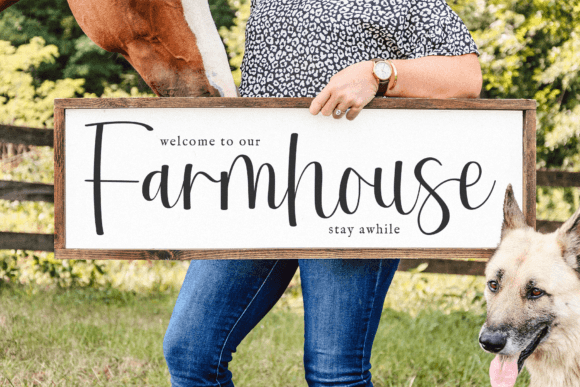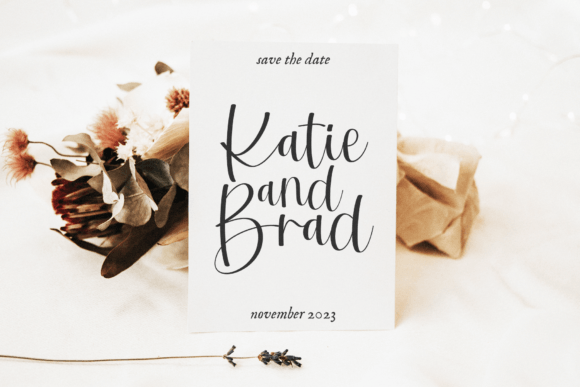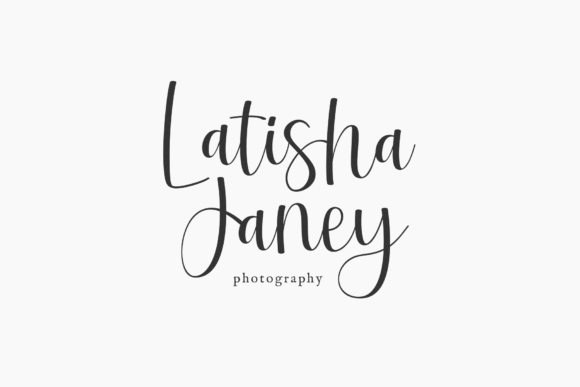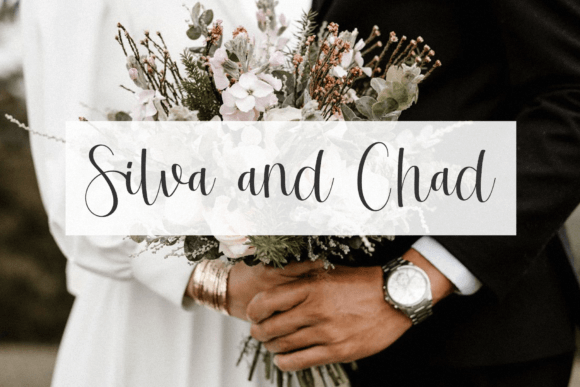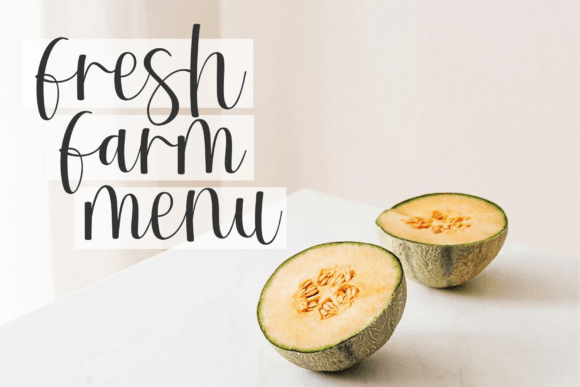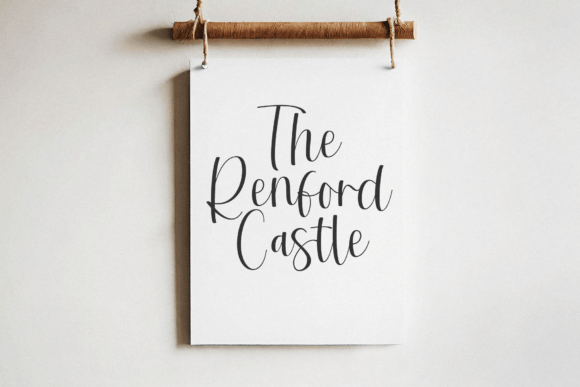
Introducing Farmhouse Country Font: The Perfect Addition to Your Craft Projects
Are you a designer, crafter, or DIY enthusiast looking for a font that can add a touch of modern charm to your projects? Look no further than Farmhouse Country Font, a beautiful modern script font that’s perfect for a wide range of craft projects. In this article, we’ll take a closer look at this versatile font and explore its many uses, from logos and signs to Cricut projects, quotes, stickers, and more.
What is Farmhouse Country Font?
Farmhouse Country Font is a modern script font that’s designed to bring a touch of rustic charm to your craft projects. With its elegant, cursive lines and modern feel, this font is perfect for anyone looking to add a personal touch to their designs. Whether you’re creating logos, signs, or other craft projects, Farmhouse Country Font is sure to impress.
Uses for Farmhouse Country Font
One of the best things about Farmhouse Country Font is its versatility. This font can be used for a wide range of craft projects, including:
- Logos: Create a custom logo for your business or brand with Farmhouse Country Font. This font is perfect for businesses that want to convey a sense of rustic charm and elegance.
- Signs: Use Farmhouse Country Font to create beautiful signs for your home or business. This font is perfect for directional signs, welcome signs, and more.
- Cricut Projects: Farmhouse Country Font is a great addition to any Cricut project. Use it to create custom vinyl decals, iron-on designs, and more.
- Quotes: Add a touch of elegance to your quote designs with Farmhouse Country Font. This font is perfect for creating inspirational quotes, motivational quotes, and more.
- Stickers: Use Farmhouse Country Font to create custom stickers for your laptop, water bottle, or any other surface.
- Pantry Labels: Add a touch of rustic charm to your pantry with custom labels created with Farmhouse Country Font.
Why Choose Farmhouse Country Font?
So why choose Farmhouse Country Font for your craft projects? Here are just a few reasons:
- Unique and Versatile: Farmhouse Country Font is a unique and versatile font that’s perfect for a wide range of craft projects.
- Elegant and Modern: This font has an elegant, modern feel that’s sure to impress.
- Easy to Read: Farmhouse Country Font is easy to read, making it perfect for signs, labels, and other projects where readability is important.
- Customizable: With Farmhouse Country Font, you can create custom designs that reflect your personal style.
Tips for Using Farmhouse Country Font
Here are a few tips for using Farmhouse Country Font in your craft projects:
- Pair it with Other Fonts: Farmhouse Country Font looks great when paired with other fonts. Try pairing it with a bold, sans-serif font for a striking contrast.
- Experiment with Colors: Don’t be afraid to experiment with different colors when using Farmhouse Country Font. This font looks great in a variety of colors, from bold and bright to soft and pastel.
- Use it for Headings and Titles: Farmhouse Country Font is perfect for headings and titles. Use it to add a touch of elegance to your designs.
Farmhouse Country Font is a beautiful modern script font that’s perfect for a wide range of craft projects. With its elegant, cursive lines and modern feel, this font is sure to bring a touch of charm to your designs. Whether you’re a designer, crafter, or DIY enthusiast, Farmhouse Country Font is a great addition to your font collection. So why wait? Download Farmhouse Country Font today and start creating beautiful craft projects that showcase your personal style.